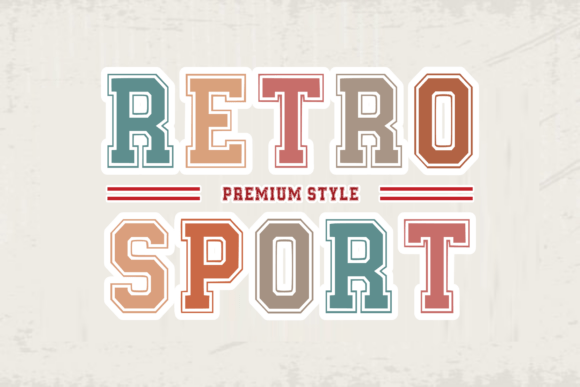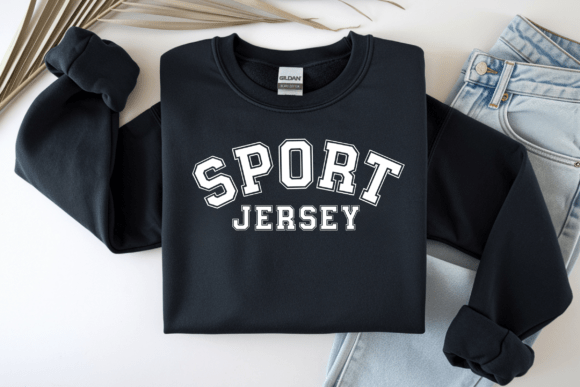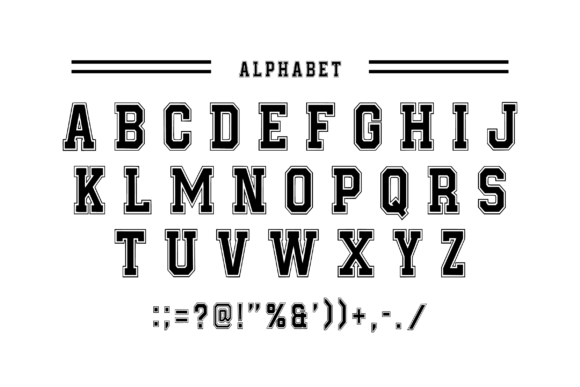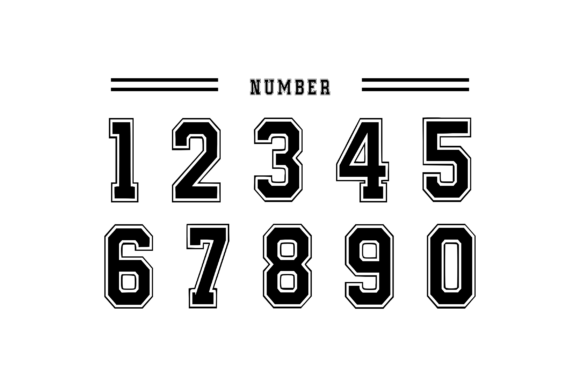
Unlocking the Power of Collegestyle Regular Font: A Designer’s Best Friend
I’ll never forget the time I was working on a sports branding project, and my client asked me to create a logo that screamed “collegiate elegance and sporty vibrancy.” I was stuck, scrolling through font libraries, trying to find the perfect fit. That’s when I stumbled upon the Collegestyle Regular Font. It was like a breath of fresh air – energetic, versatile, and precisely what I needed to elevate my design.
A Personal Review: The Good, the Great, and the Quirks
- ✨ Versatility: This font is a chameleon, seamlessly adapting to various branding projects, from sports apparel to digital graphics.
- ✅ Comprehensive Character Set: Uppercase alphabets, numerals, punctuation marks, and a diverse mix of symbols – it’s got everything I need.
- 🔥 Energy and Vibrancy: The Collegestyle Regular Font injects a perfect blend of elegance and sportiness into my designs.
While working with Collegestyle Regular Font, I did notice a few minor limitations:
- ⚠️ Limited Stylistic Options: Although the font offers some stylistic alternates, I wished for more variations to experiment with.
- 🤔 Glyphs can be Overwhelming: With such a vast array of glyphs and symbols, it can take some time to navigate and find the perfect one.
The Designer Inspiration Behind Collegestyle Regular Font
The Collegestyle Regular Font was crafted with the intention of capturing the essence of collegiate elegance and sporty vibrancy. Its creator aimed to design a versatile typeface that would cater to a wide range of branding projects, from sports apparel to digital graphics. The result is a font that exudes energy, precision, and aesthetic appeal.
Q: What makes Collegestyle Regular Font suitable for sports branding projects?
A: The font’s energetic and sporty vibe, combined with its versatility, makes it an excellent choice for sports branding projects.
Q: Does Collegestyle Regular Font support OpenType features?
A: Yes, the font supports OpenType features, allowing you to access a range of glyphs, stylistic alternates, and other typographic tools.
Q: Is Collegestyle Regular Font suitable for luxury brands?
A: While the font has a sporty edge, its elegant and refined features make it suitable for luxury brands looking for a unique typographic approach.